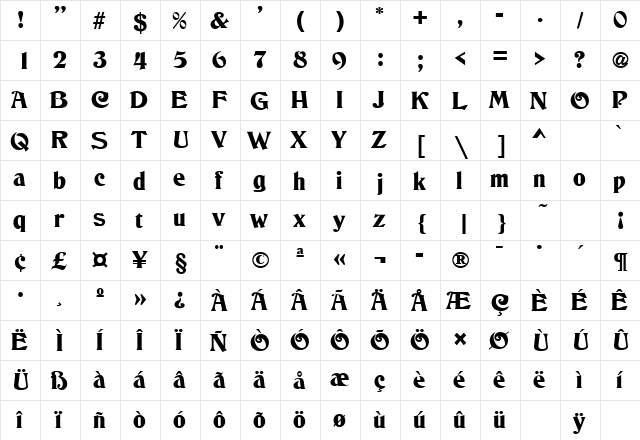
Columbo SF Regular
Design Context for Columbo SF Typeface
Columbo SF is a composed and adaptable typeface that performs quietly and consistently across a wide range of design contexts.